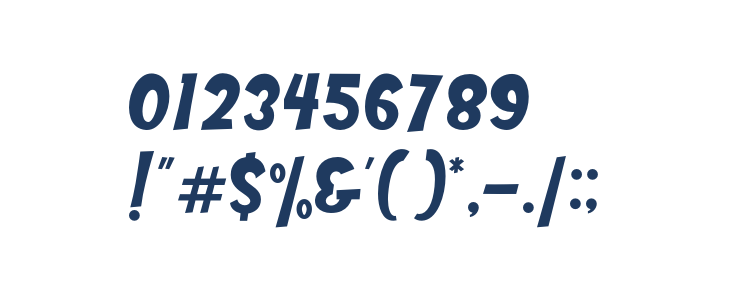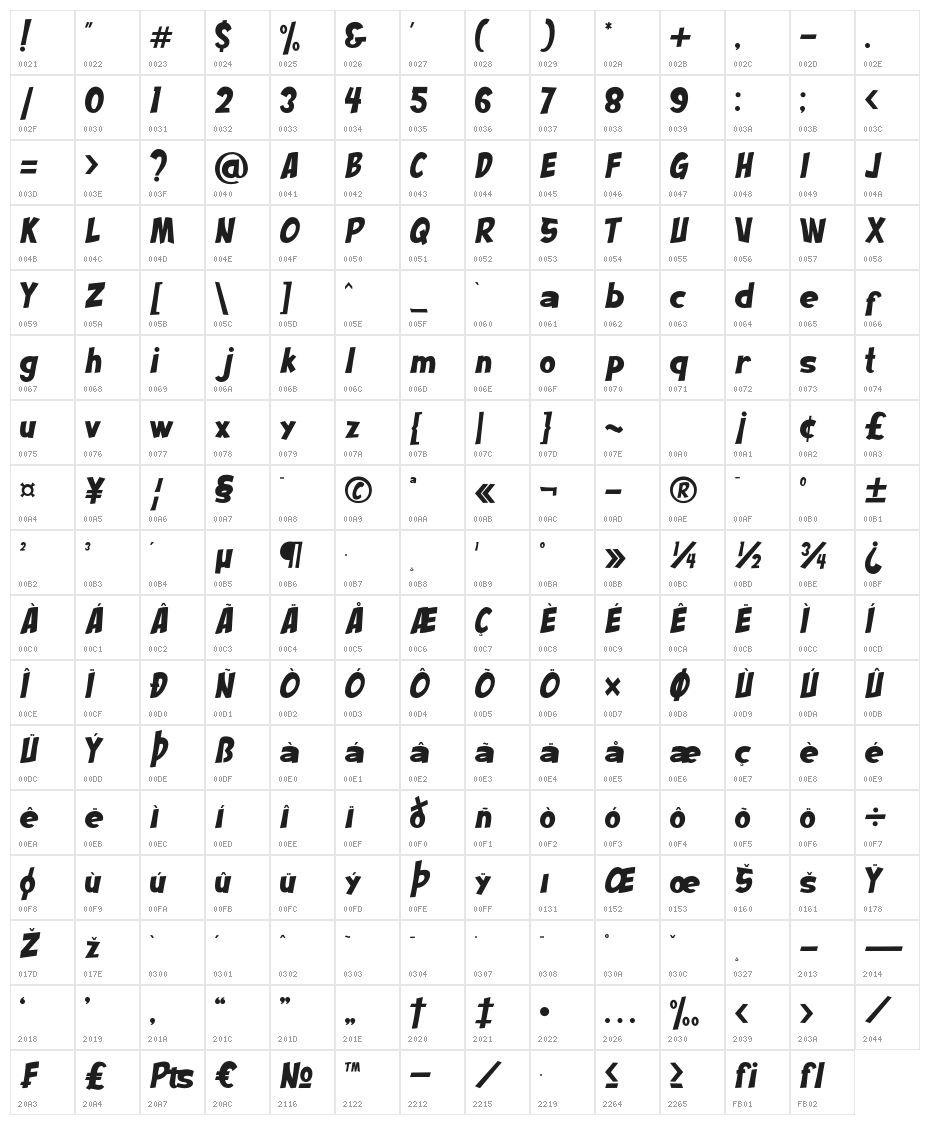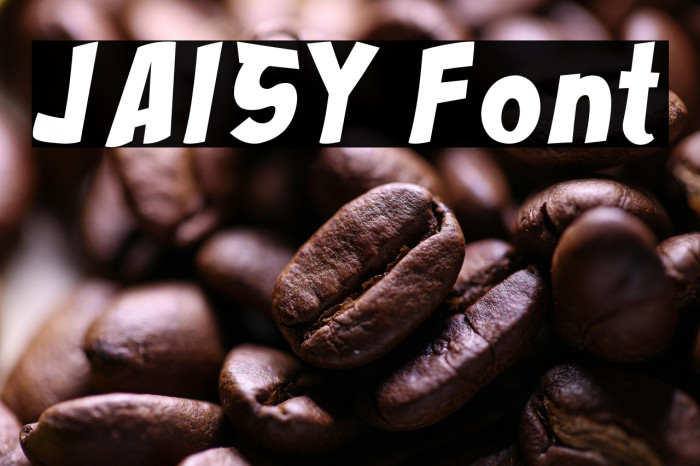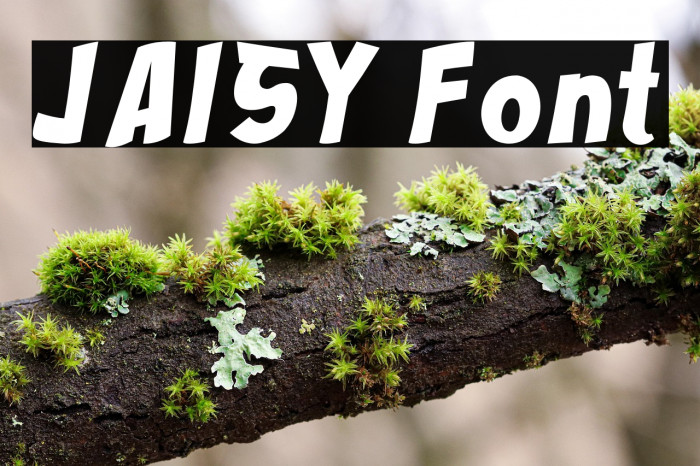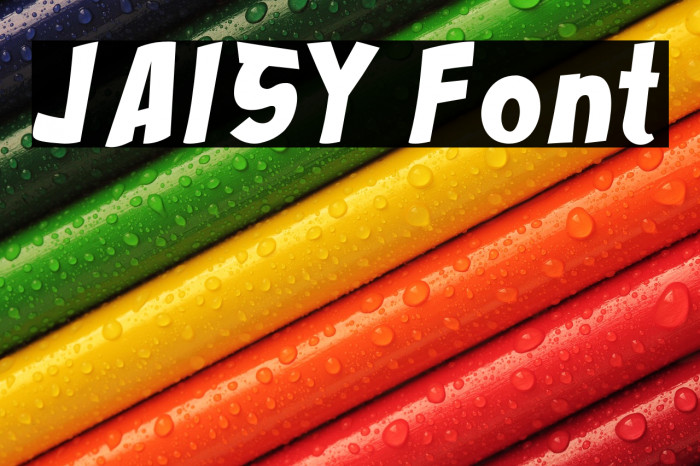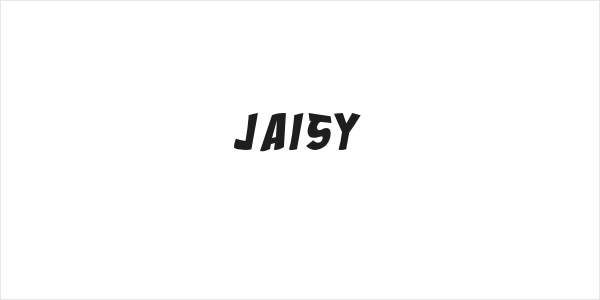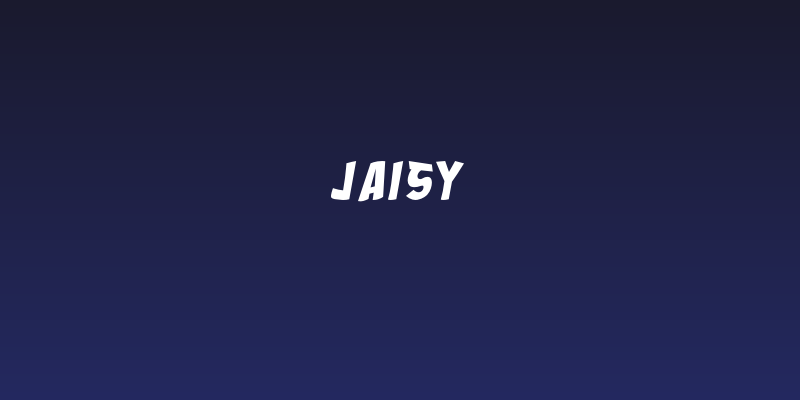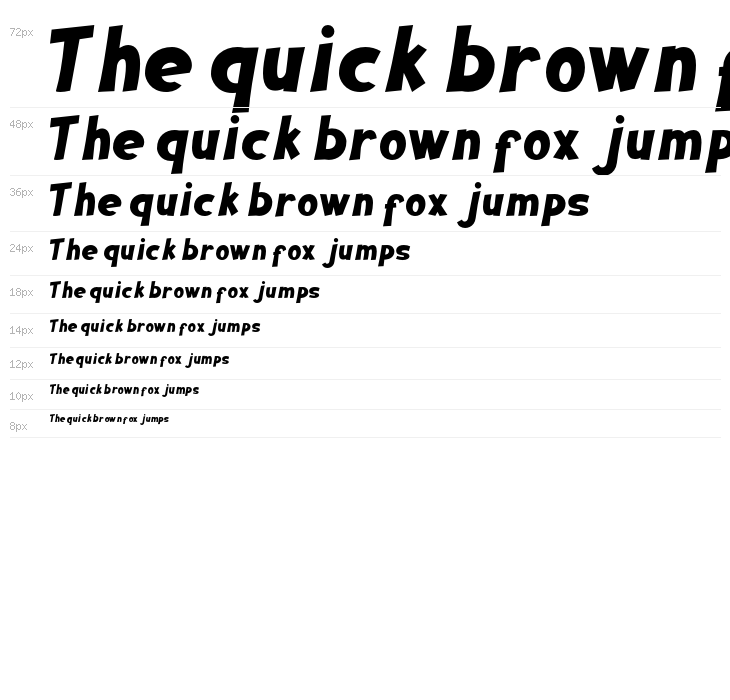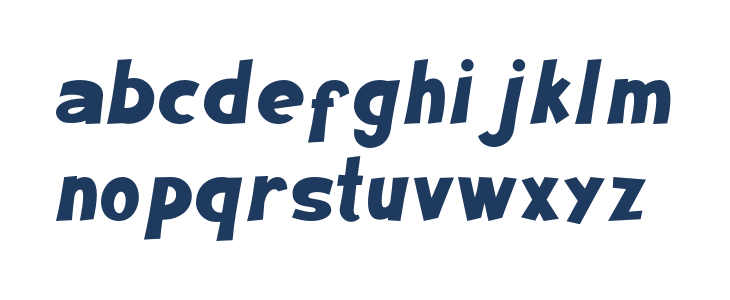
JAISY Font
JAISY Description
This font features a bold and dynamic style with a slight slant, giving it a sense of movement and energy. The characters are thick and robust, with a playful and informal appearance. The uppercase letters are particularly striking, with a strong presence that commands attention. The lowercase letters maintain the same boldness, ensuring consistency throughout the text. Numbers and special characters are equally bold, making them stand out clearly. The overall design is modern and eye-catching, suitable for projects that require a lively and engaging typeface.
| Proposed Projects | Ideal for posters, headlines, branding, and any project needing a bold, lively typeface. |